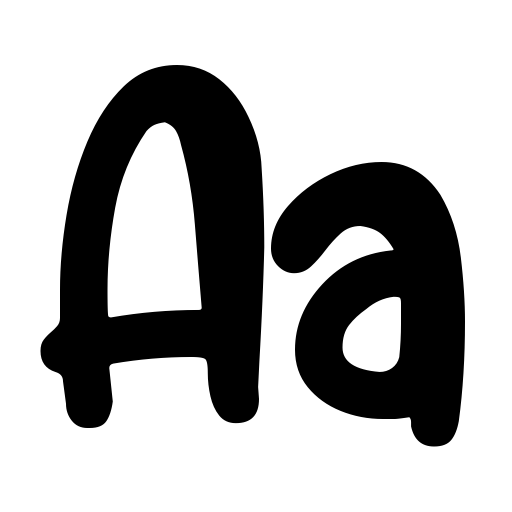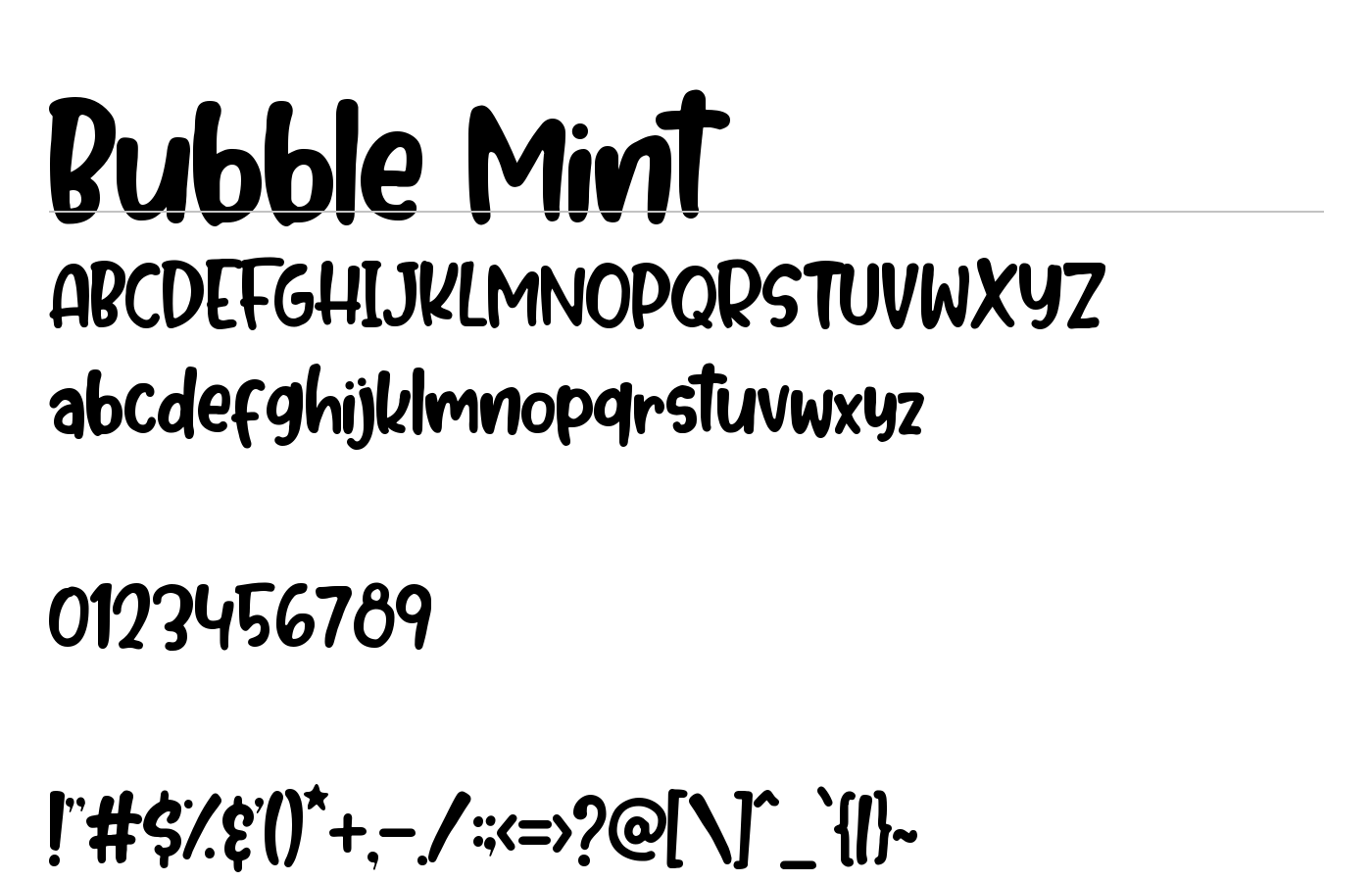
Bubble Mint is a playful, rounded sans serif font with a casual, handwritten feel. Its thick, soft strokes and lively letterforms make it perfect for fun, friendly designs like kids' products, informal branding, and creative projects that need a cheerful, approachable vibe. This font works well for headlines and logos where a warm, engaging personality is desired.
Bubble Mint Font
About Bubble Mint Font
| Font family | Bubble Mint Font |
| Designer | Dimas Prasetyo |